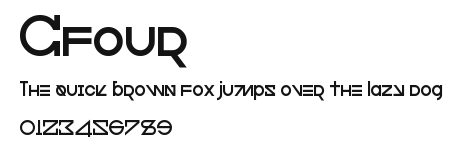
• Font Name: Cfour
• Full Font Name: Cfour
• Designer: AM
About Cfour.otf
Cfour.otf is a modern, elegant sans-serif font designed for ultimate readability and visual harmony. Perfect for branding, headlines, web design, and print materials.